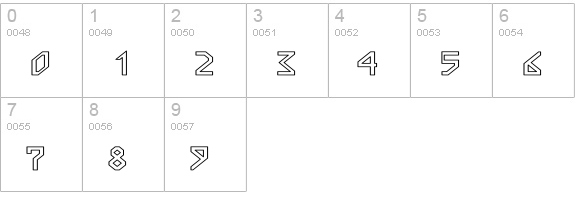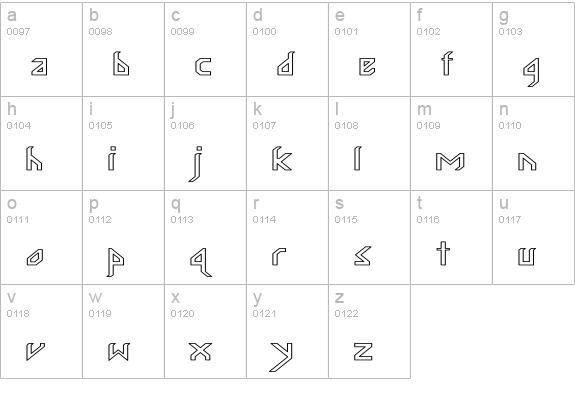
InkaBod Large Hollow Font Details
Introducing InkaBod Large Hollow, a captivating and unique font designed to make a bold statement. This remarkable typeface combines elegance with a touch of playfulness, making it perfect for a variety of creative projects. InkaBod Large Hollow features spacious letterforms with a hollow center, creating a visually striking effect that demands attention. Its large size adds an extra level of impact, ensuring that your message stands out from the crowd. Whether you're designing a poster, logo, or heading for a website, this font will effortlessly elevate your design to new heights. But what sets InkaBod Large Hollow apart is not just its captivating aesthetic; it's also the fact that it is freely available to download at FontsMarket.com. Yes, you read that right - this exceptional font can be yours without breaking the bank. FontsMarket.com is dedicated to providing designers with high-quality fonts, and InkaBod Large Hollow is no exception. With its extensive character set, including uppercase letters, numbers, punctuation marks, and special symbols, InkaBod Large Hollow offers versatility and flexibility for all your design needs. Its clean lines and balanced proportions ensure legibility across various mediums, ensuring that your message is conveyed with clarity and style. So why wait? Download InkaBod Large Hollow today and unleash your creativity like never before. With its captivating design and the freedom to use it without any cost, this font is a must-have for any designer looking to make a lasting impression. Elevate your projects to new heights with InkaBod Large Hollow, available for free at FontsMarket.com.